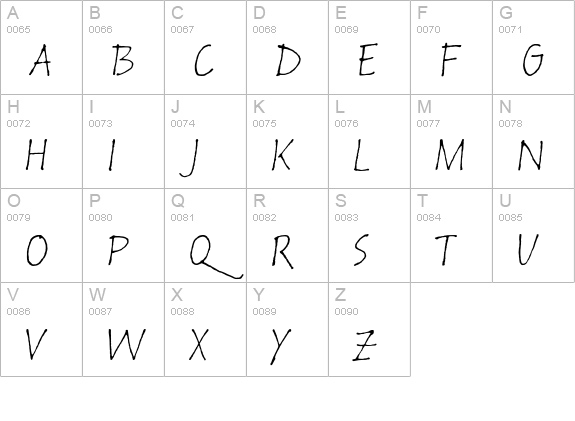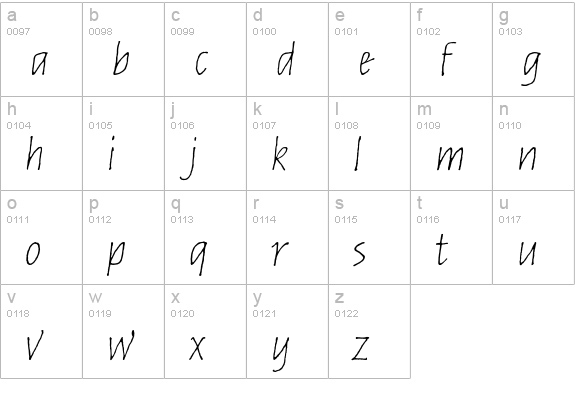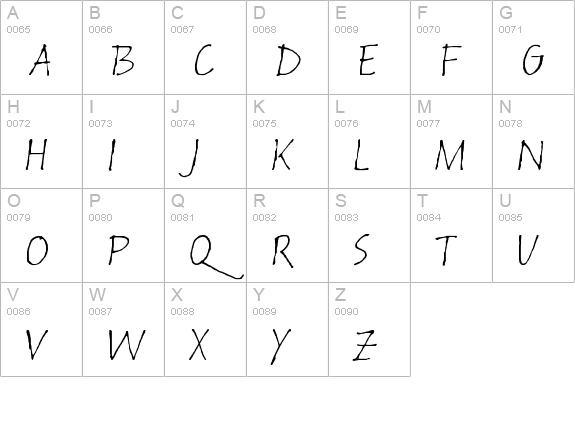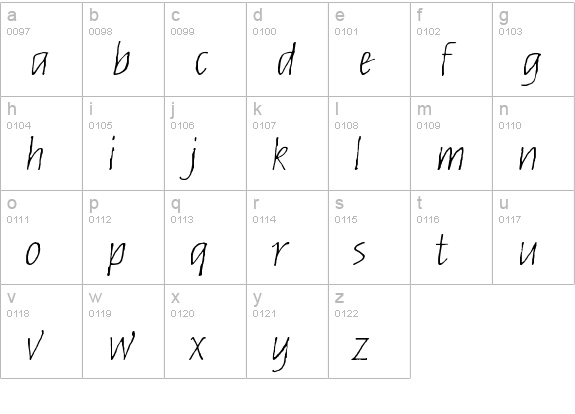
Russell Oblique Informal Font Details
Russell Oblique Informal is a distinctive, italic variant in the Russell typeface family \xE2\x80\x94 well suited to design and typography projects.
Russell Oblique Informal font is a versatile and modern typeface that effortlessly combines style and readability. Its distinctive slanted design adds a touch of elegance to any project, making it perfect for a wide range of applications, from branding to editorial design. This unique font features a playful yet sophisticated look that is sure to grab attention and leave a lasting impression. Whether you're working on a poster, website, or logo, Russell Oblique Informal font will help you stand out from the crowd with its bold and eye-catching appearance. Best of all, Russell Oblique Informal font is available for free download at FontsMarket.com, making it easily accessible to designers and creatives looking to add a touch of flair to their projects without breaking the bank. Don't miss out on the opportunity to enhance your designs with this stylish and versatile font today!